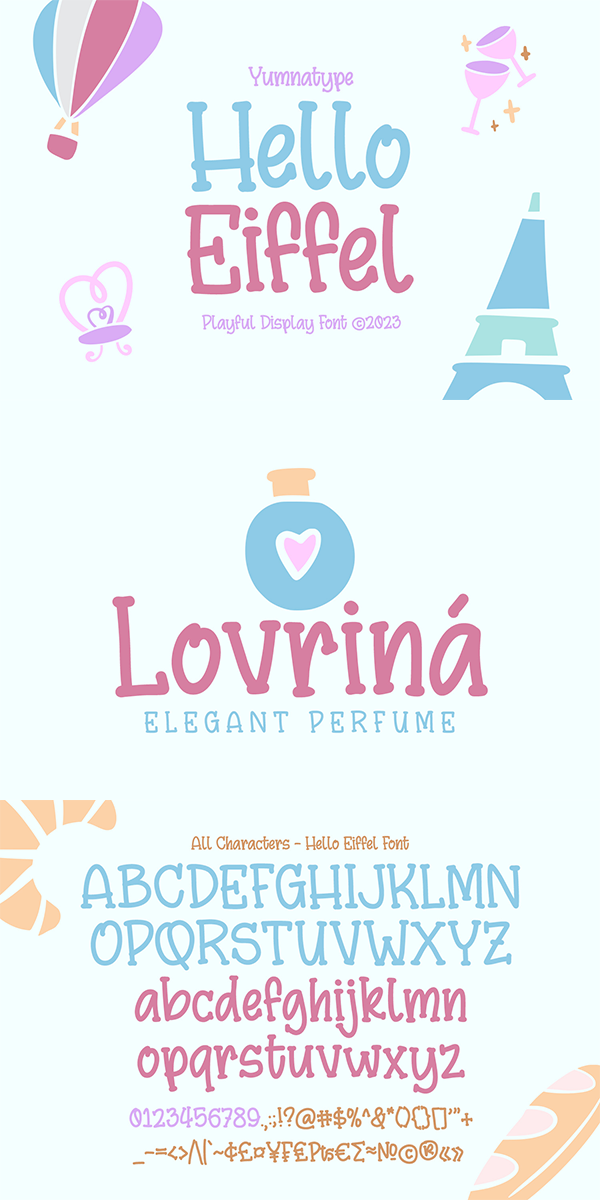
Hello Eiffel Font
About Hello Eiffel
Hello Eiffel is a display font in simple, yet interesting letter shapes with which you can strengthen your desired messages to deliver without distracting attention on the text content itself. Despite its simplicity, Hello Eiffel remains interesting in modern styles to enhance the design’s aesthetic value. Its letters are legible enough to be flexibly applicable for various text sizes, and it gives you a clipart as a bonus. You can enjoy the available features here as well.
Hello Eiffel fits best for various design projects, such as brandings, posters, banners, headings, magazine covers, quotes, printed products, merchandise, social media, etc. Find out more ways to use this font by taking a look at the font preview.